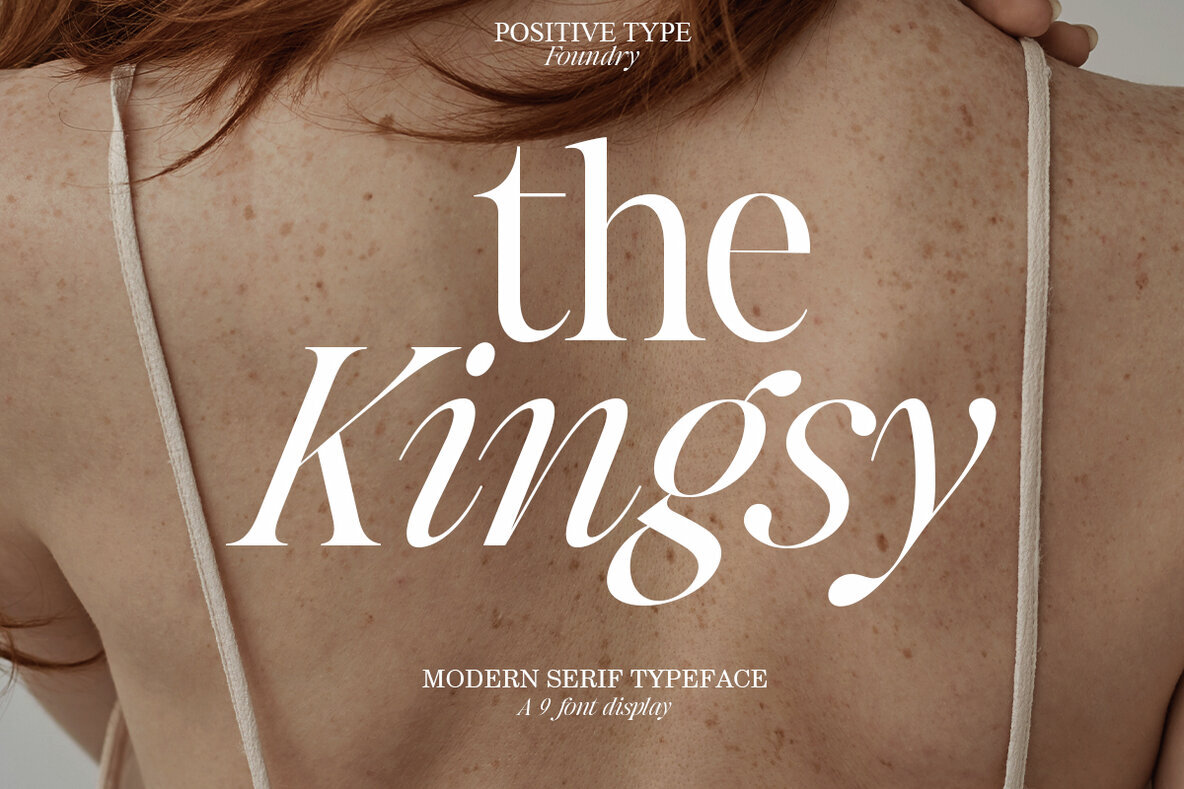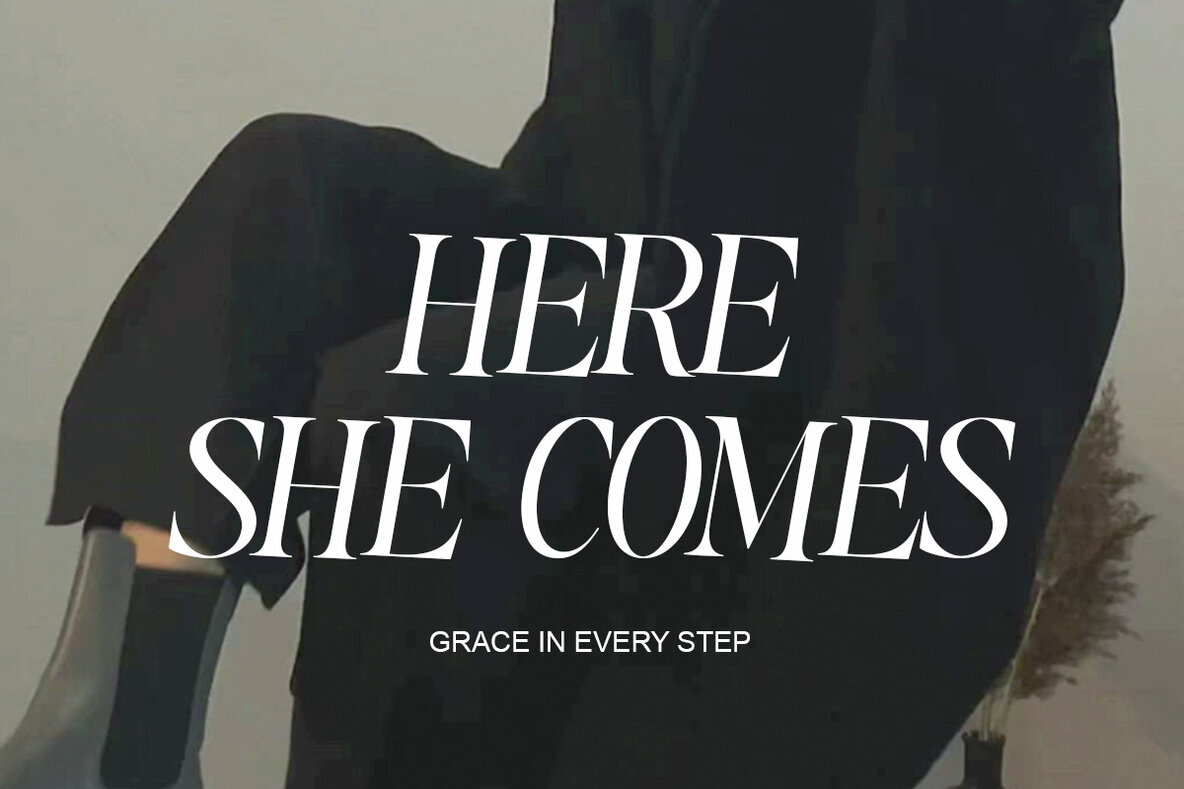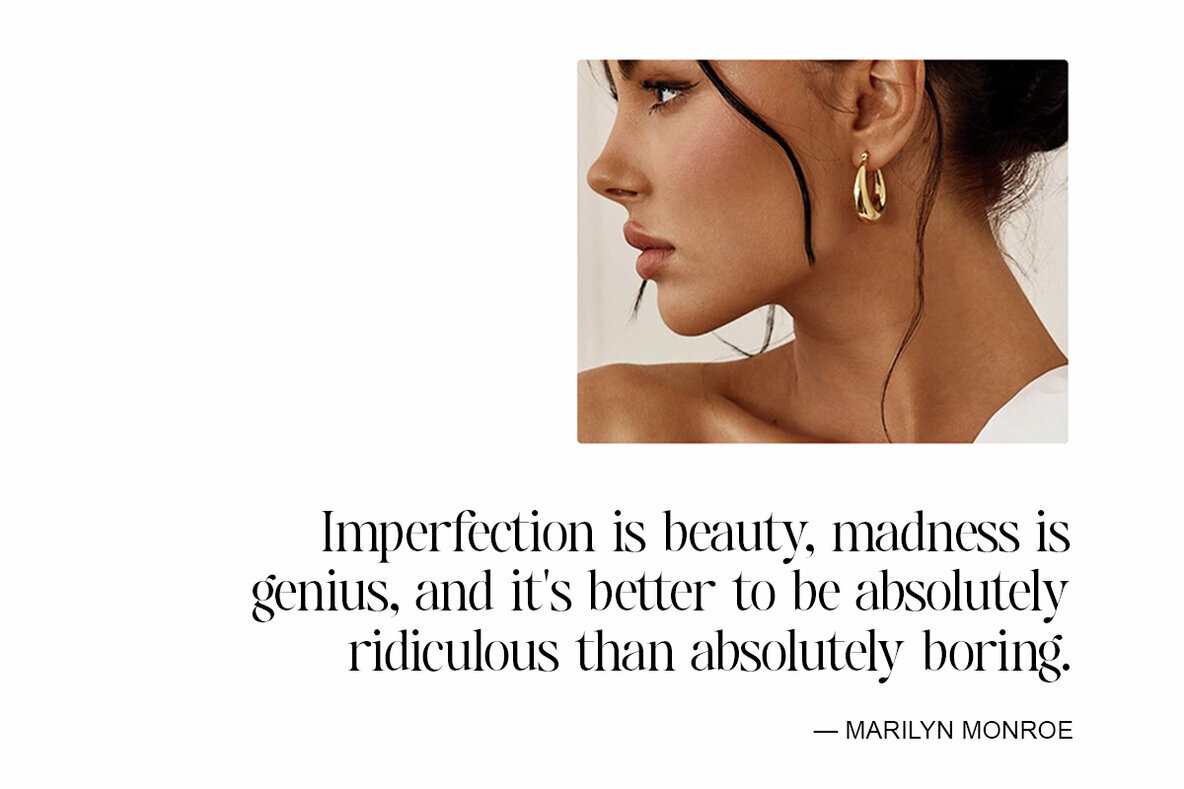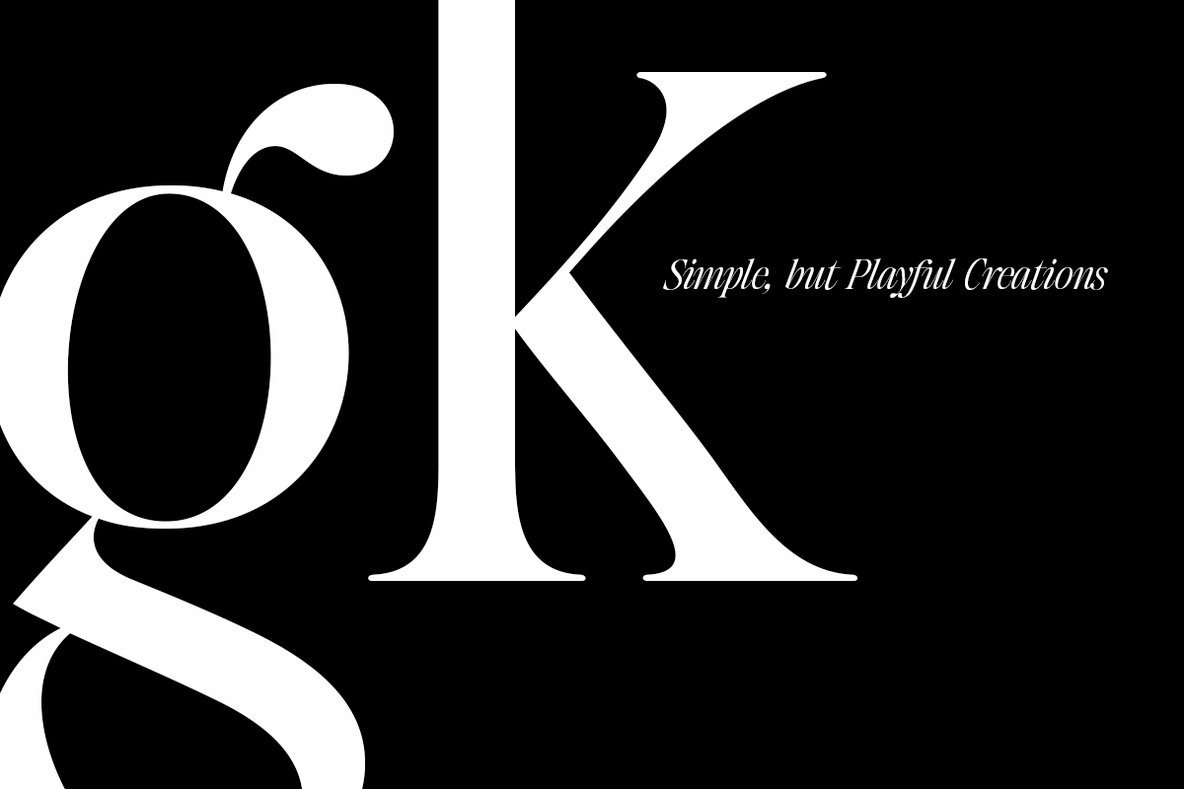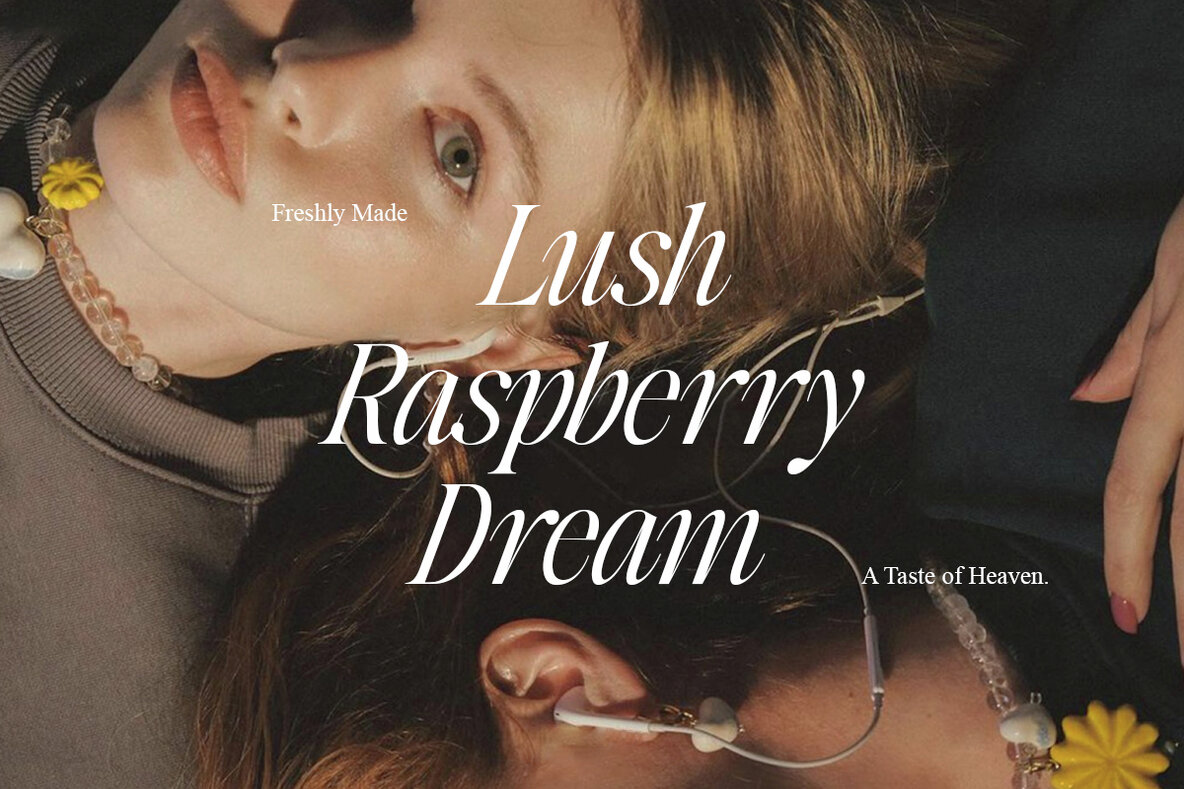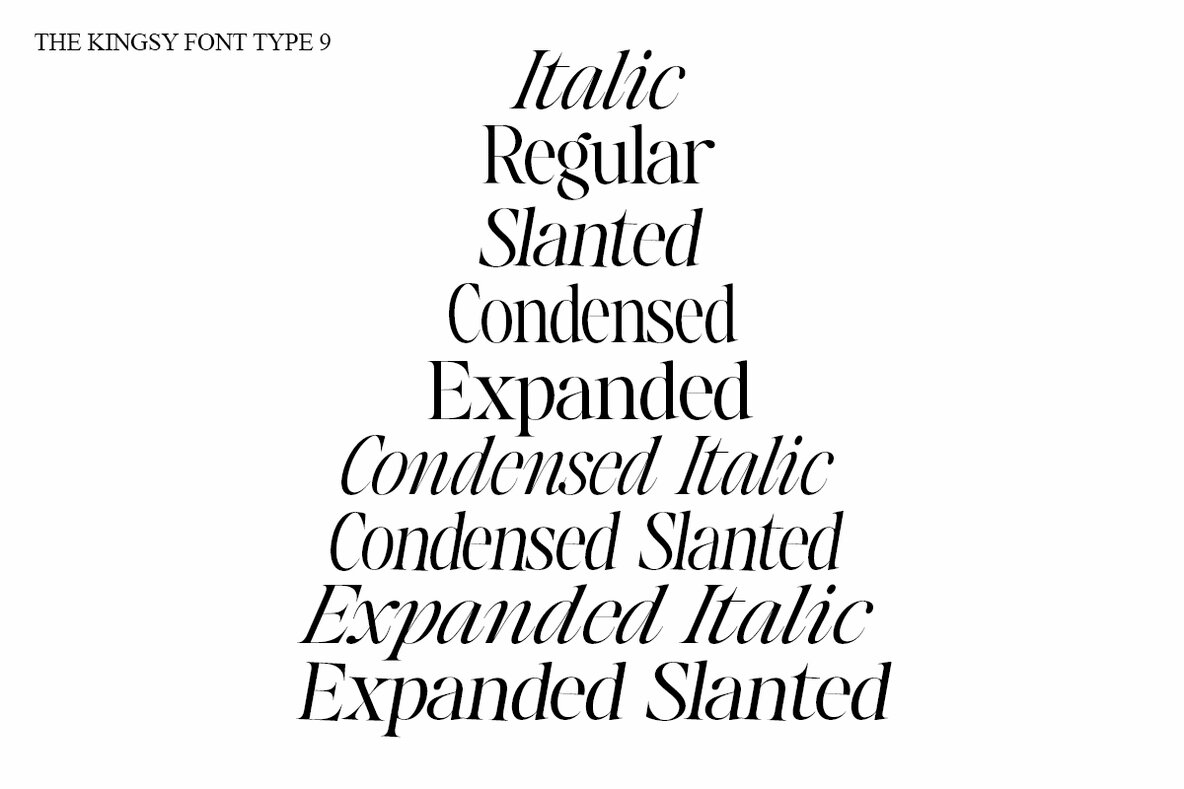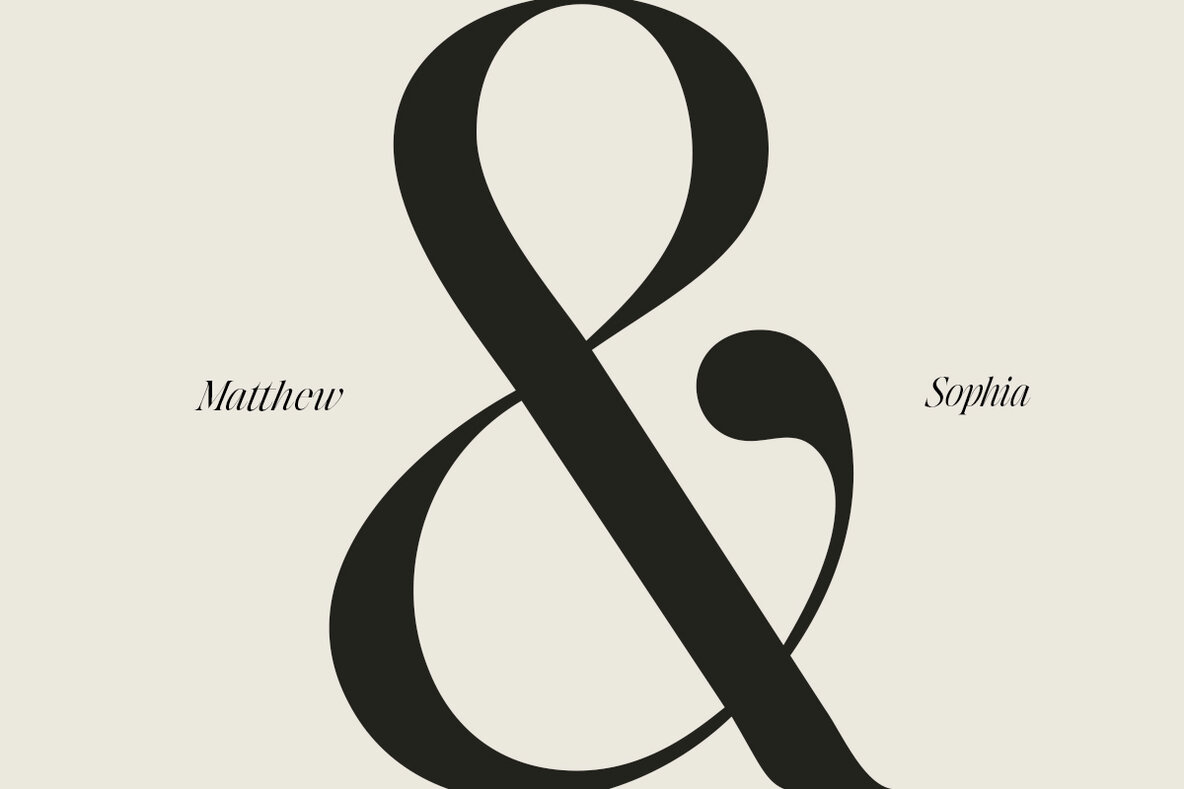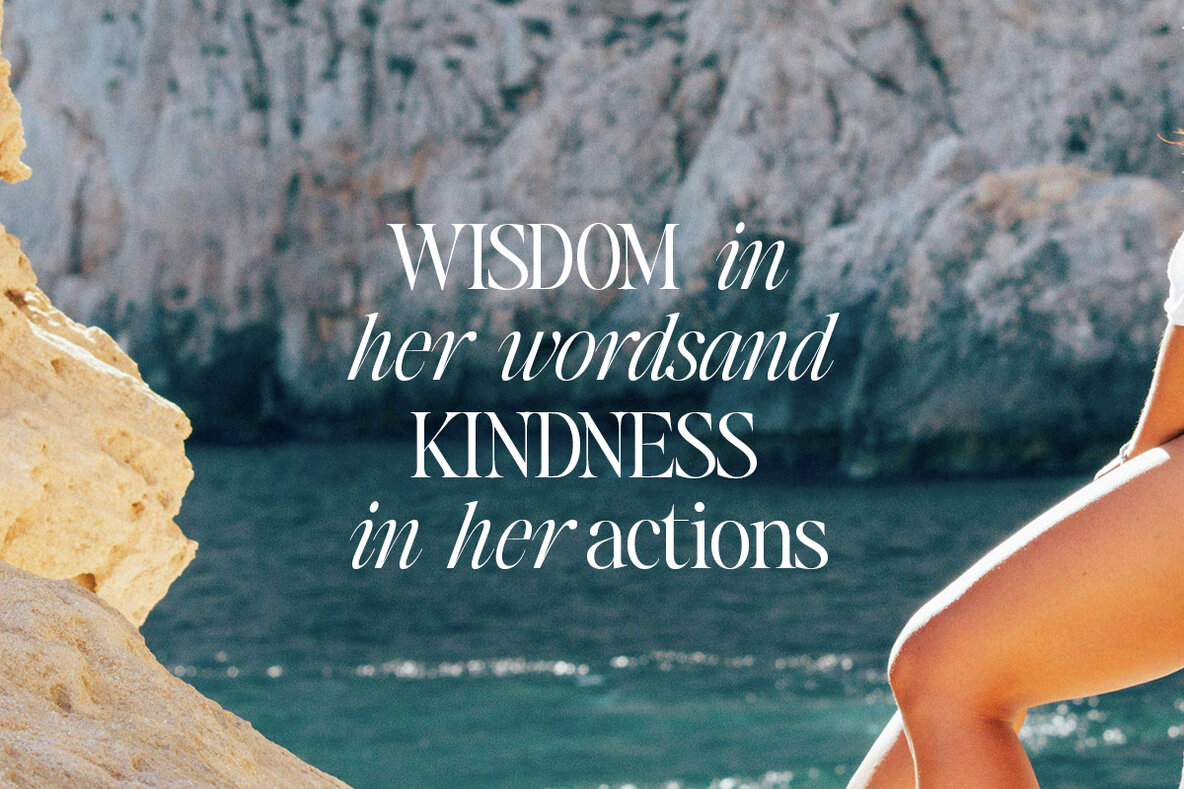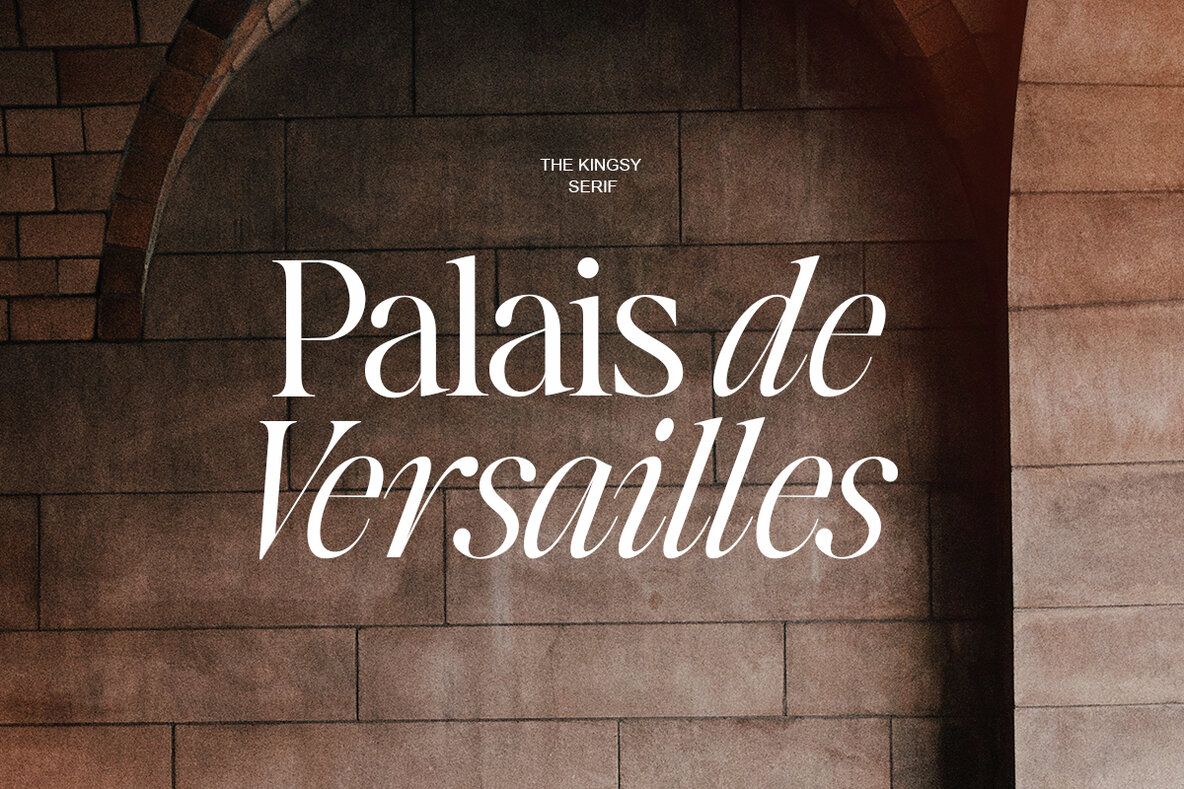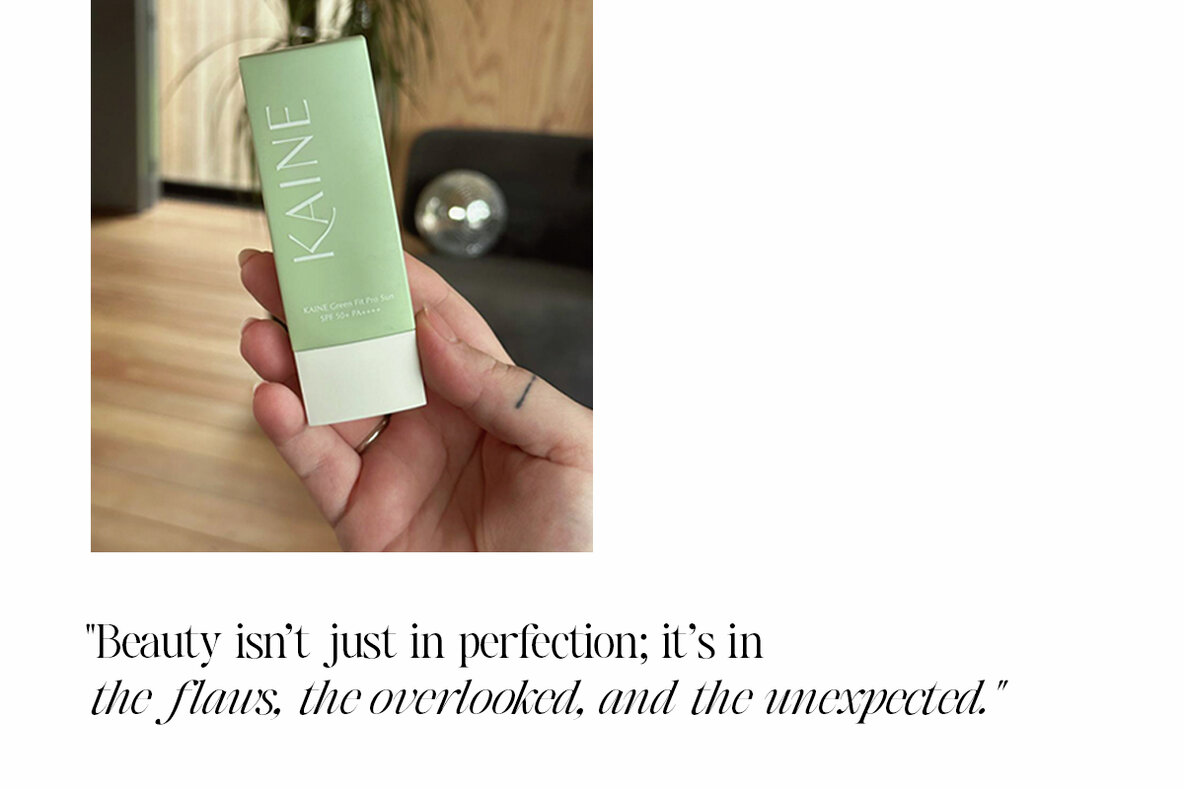
The Kingsy Font
The Kingsy is a sophisticated serif typeface designed to add classic elegance and modern versatility to any project. Available in nine distinct styles, including Regular, Italic, Condensed, and Expanded, it offers diverse options for creative expression. The Kingsy's clean lines and elegant strokes make it ideal for branding, logos, editorial designs, and invitations, seamlessly blending tradition with contemporary aesthetics.The Kingsy: A Timeless Serif Typeface